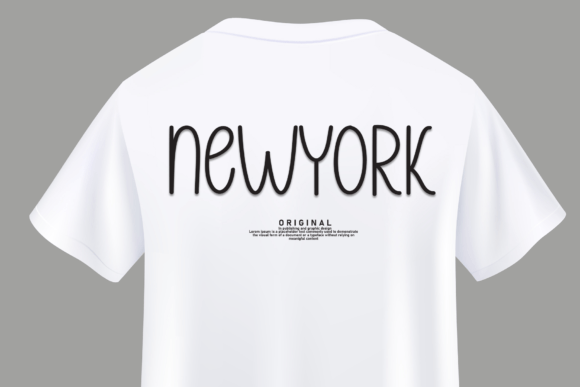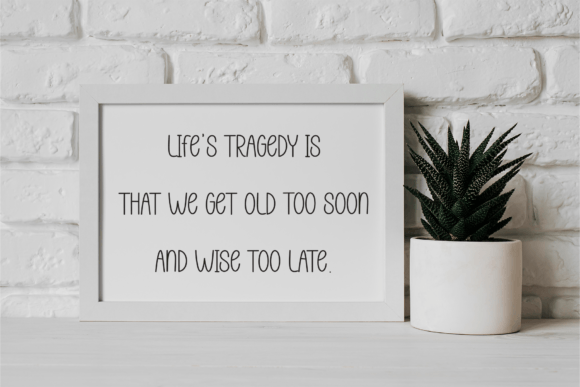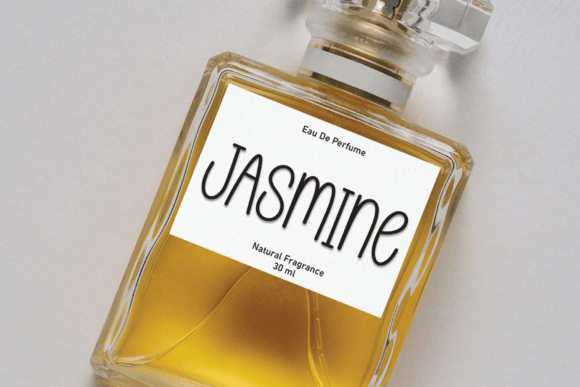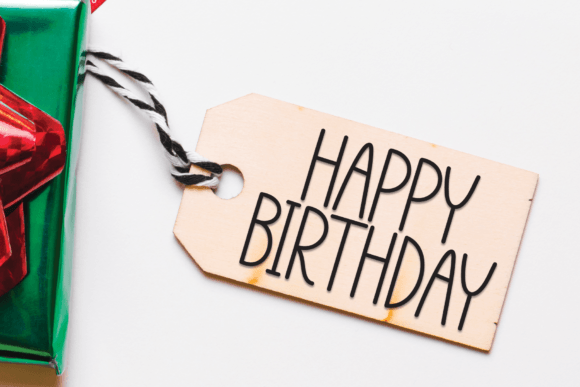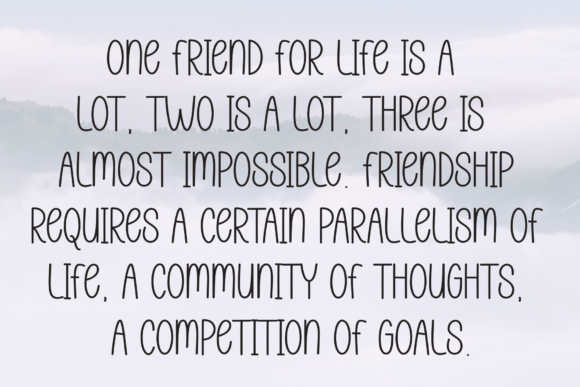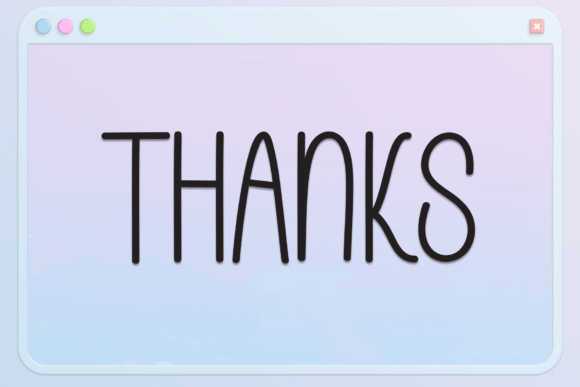
Introduction to Simple Screen Font
Who among us hasn’t sat down at their desk, staring blankly at a blank canvas, and thought, “I just need something to make this design pop!” Whether you’re working on a wedding invitation, a birthday card, or any other creative project that requires a little extra flair, you know the struggle is real. That’s where the Simple Screen Font comes in – a sweet and friendly handwritten display font that’s sure to add a fun touch to your design.
As a designer, you’re always on the lookout for high-quality fonts that can elevate your work and make it stand out. And with the Simple Screen Font, you’ve got just that. With its transparent background and free download option, you can easily incorporate this font into your next creative project. Plus, its cute and playful vibe makes it the perfect addition to any design resource.
Key Features of Simple Screen Font
- High-quality design suitable for various creative projects, including presentations, infographics, and more.
- Simple and clean design with a transparent background, allowing for easy integration into any design.
- Designed to be highly legible at various resolutions, including 72 dpi and 300 dpi, making it ideal for both digital and print use.
- Perfect for use in digital displays, such as presentations, websites, and mobile apps, due to its clear and readable design.
Honest Review: Simple Screen Font
I’ve had the chance to work with Simple Screen Font on a recent creative project, and I must say it’s been a solid design resource. The font is free to download, which is always a plus, especially for indie designers working on a tight budget. The high-quality design is crisp and clean, making it perfect for digital displays with a transparent background.
What works well with Simple Screen Font is its simplicity – as the name suggests! It’s incredibly versatile and can be used for a wide range of projects, from simple text overlays to more complex UI elements. I’ve used it for title screens, menus, and even in-game UI elements, and it’s always performed well.
- ✨ High-quality design with crisp, clean lines
- ✨ Simple and versatile, perfect for a wide range of projects
One limitation I’ve noticed is that the font can be a bit limited in terms of customization options. While it’s easy to use, you may find that you’re restricted in terms of what you can do with it. Additionally, the font may not be as unique or eye-catching as some of the more premium options out there.
Overall, Simple Screen Font is a solid choice for designers looking for a high-quality, free font that’s perfect for digital displays. While it may have its limitations, it’s a great resource to have in your toolkit, especially for creative projects where simplicity is key.
The Simple Screen Font is a high-quality design resource ideal for any creative project. This font is perfect for use on transparent backgrounds, making it easy to customize and integrate into your design.
To get the most out of the Simple Screen Font, use it on transparent backgrounds to create a clean and minimalist design. You can also pair it with other fonts to create a unique and eye-catching design.
The Simple Screen Font is perfect for use in presentations, infographics, and digital displays. Its clean and simple design makes it easy to read and understand, making it ideal for conveying information in a clear and concise manner.